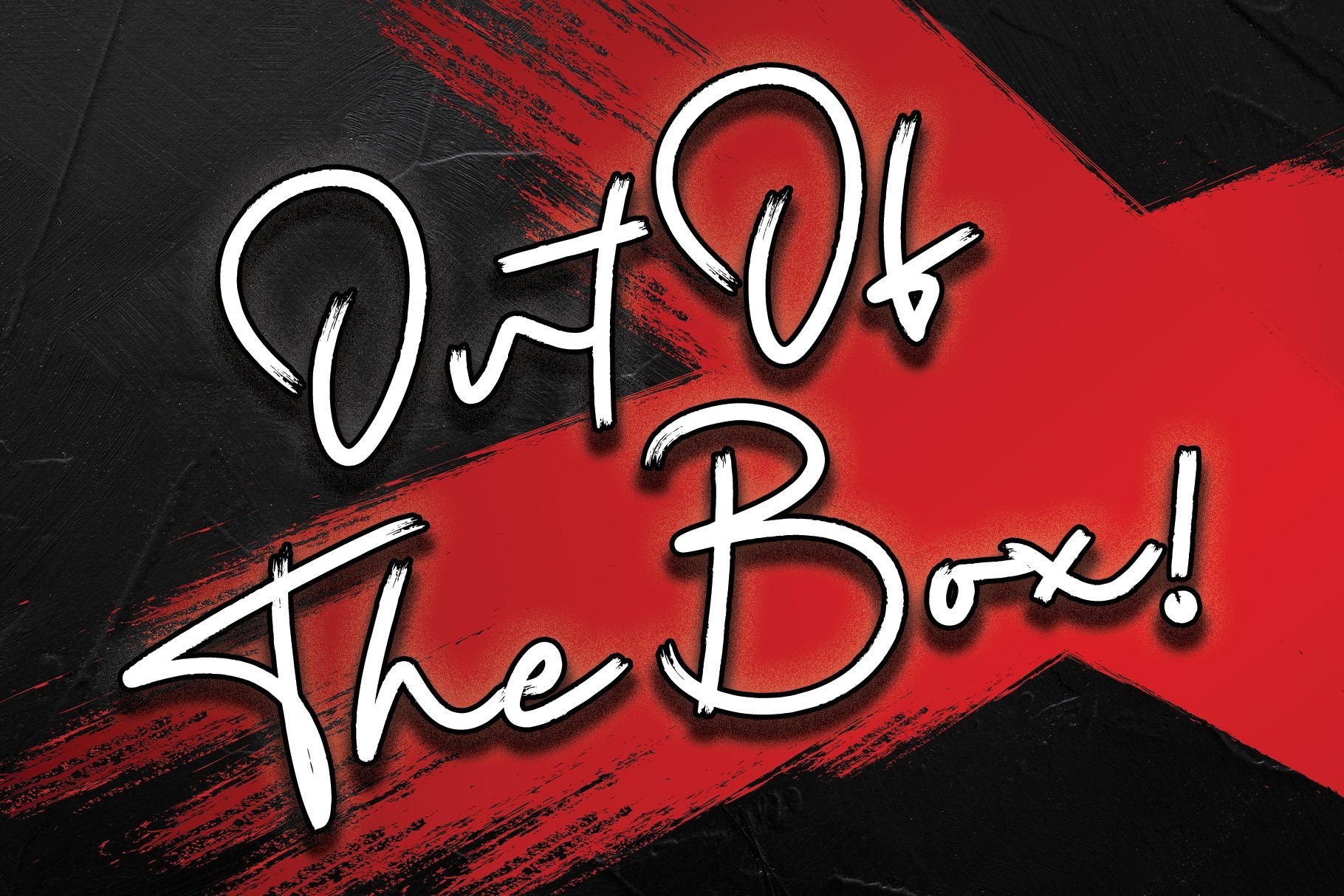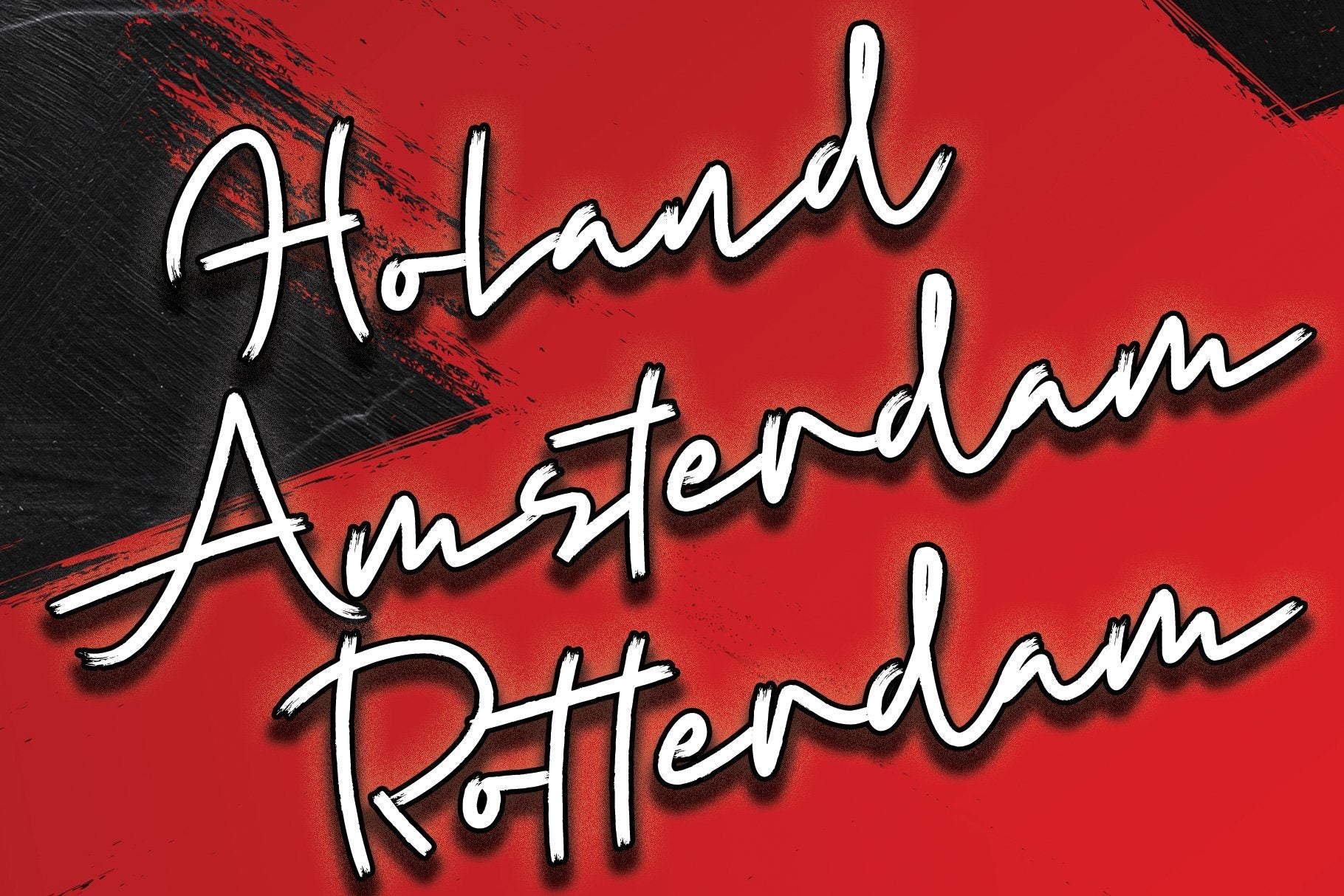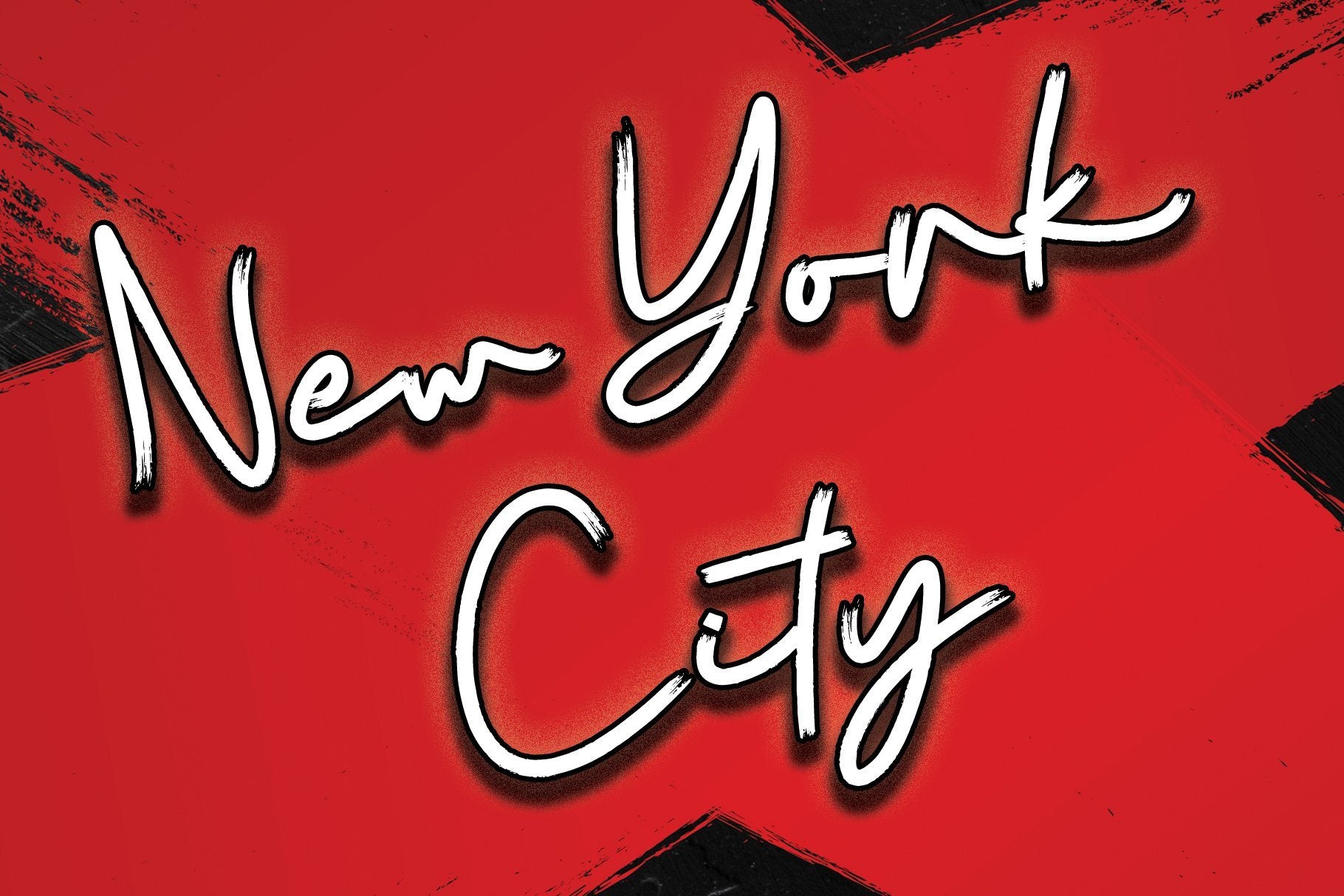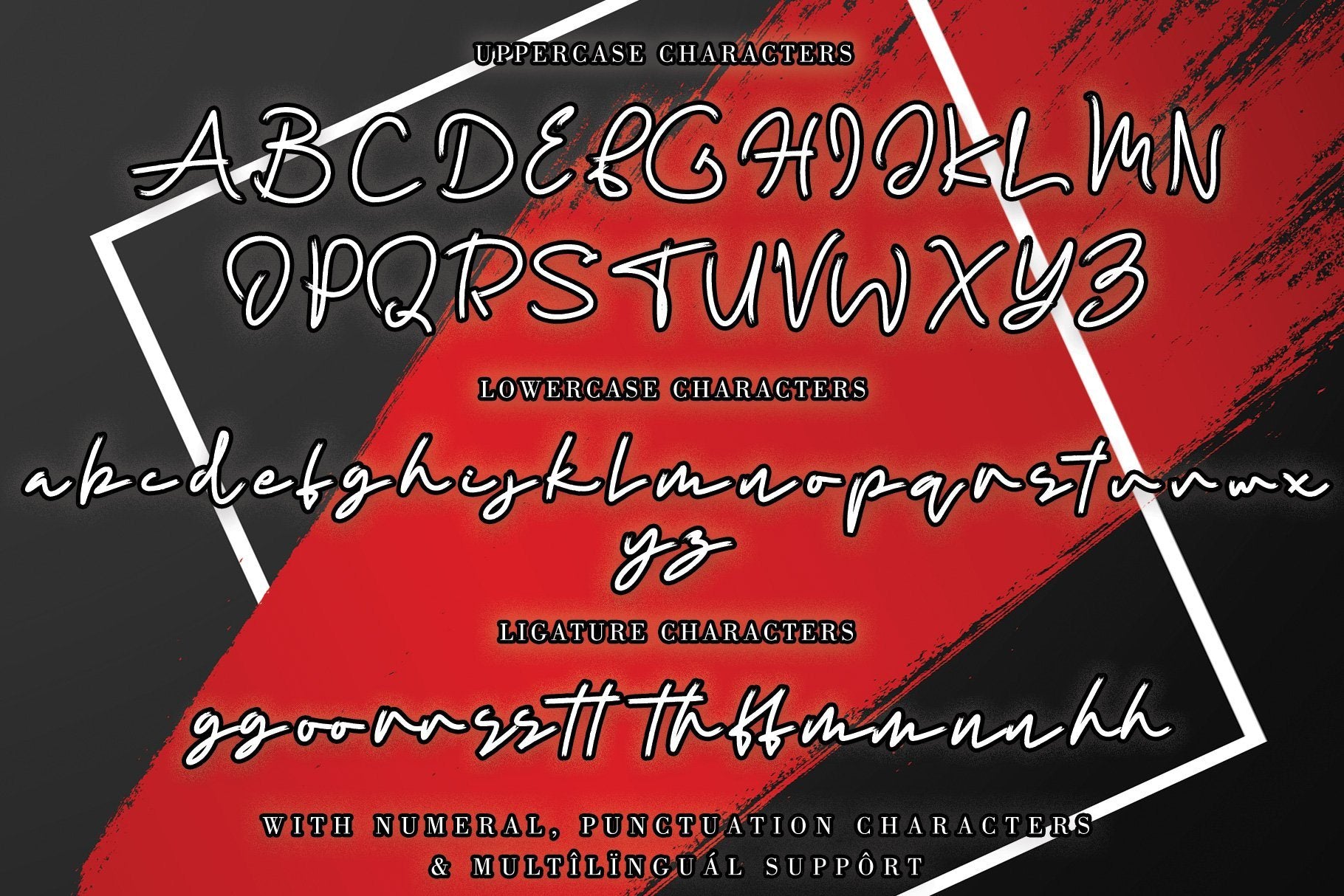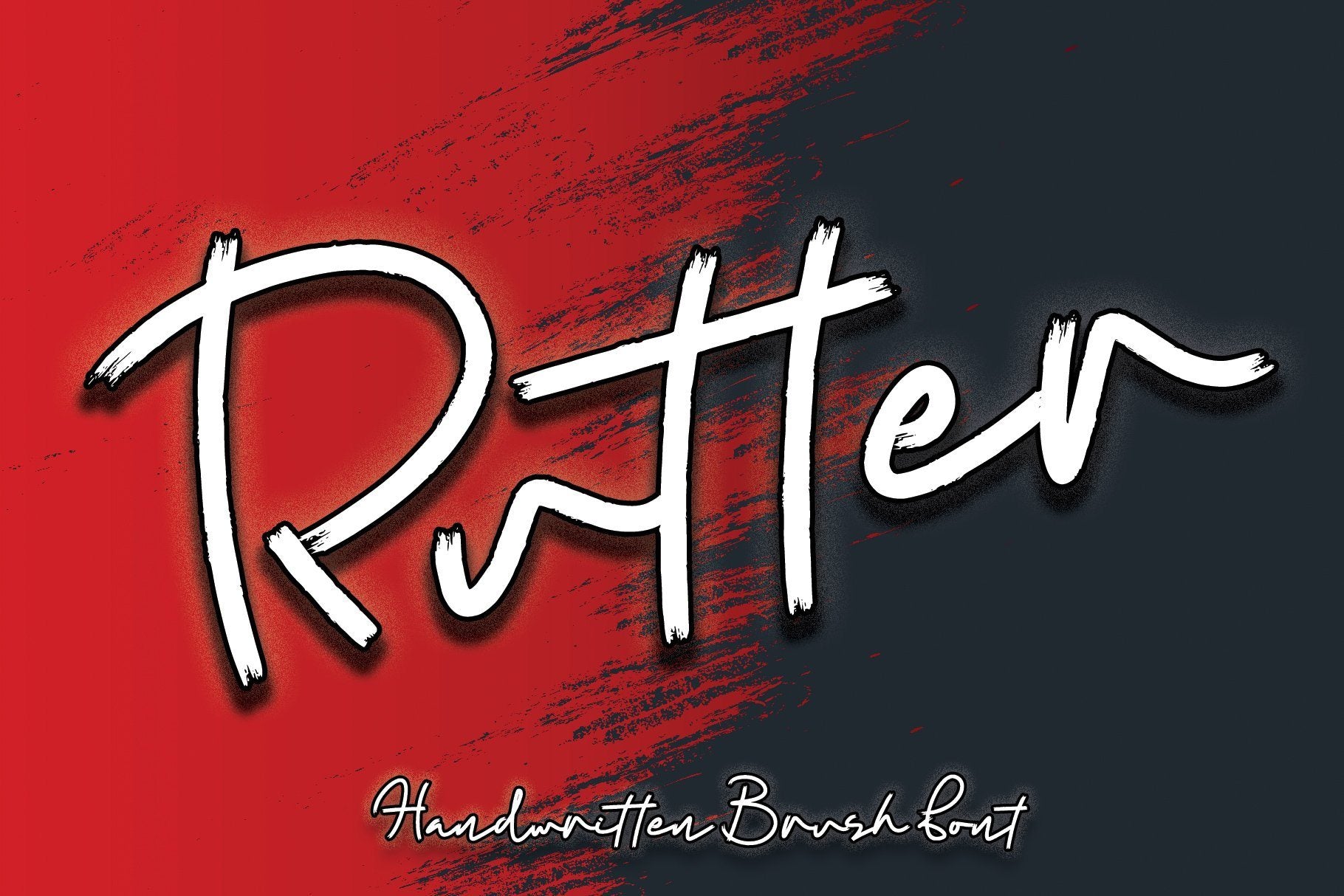
About Rutter
Rutter font is a handwritten brush font bursting with energy. It features extra attention to quick strokes and sharp details. To stay up to date for my latest job, follow me and let’s be friends because there will be many promos. Our other products : BEST SELLER MILEADILA BEAUTIFUL KISSES ANGELIN GAMOS HERTINA JENNIE ANTIKA AURORA BLACK PINK SIGNATURE California Street BESTOWENS FAMILY